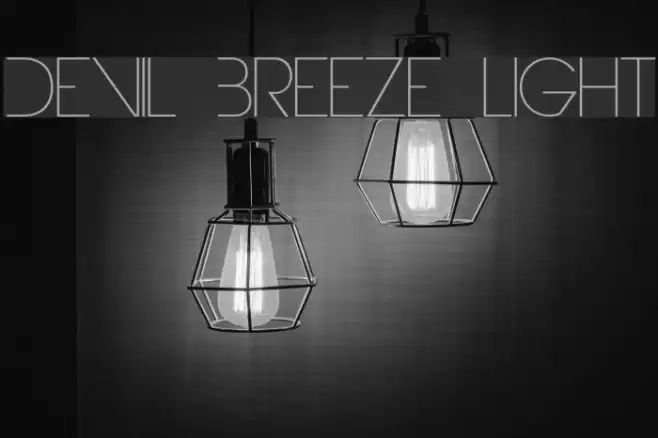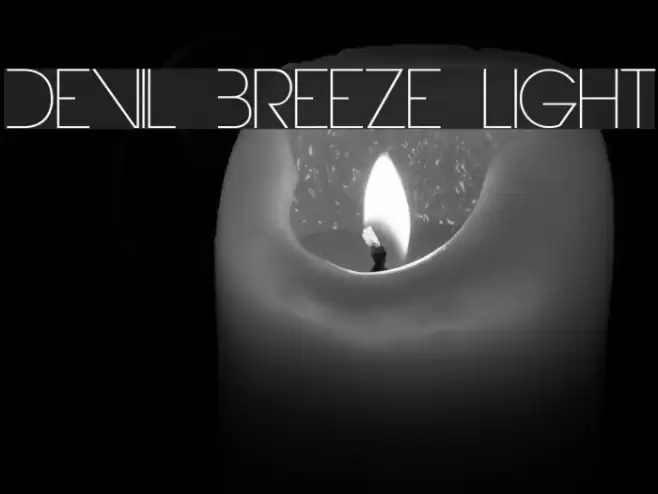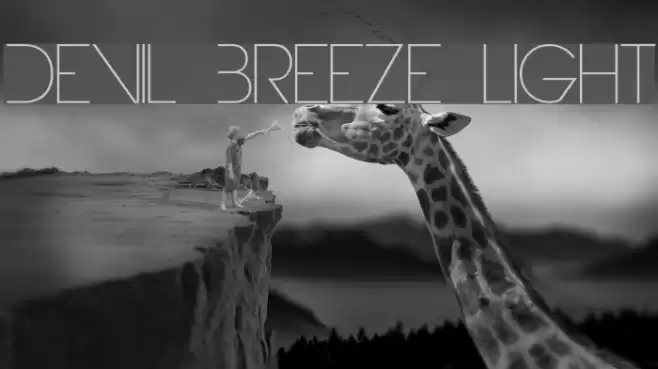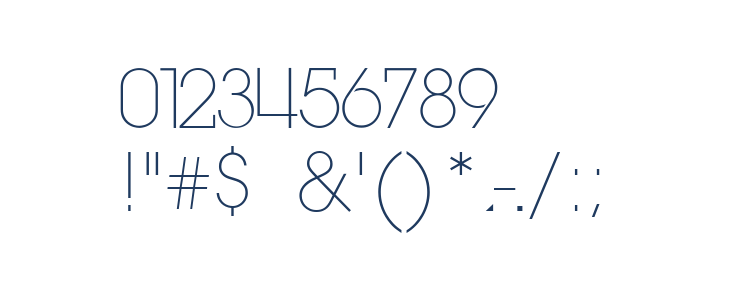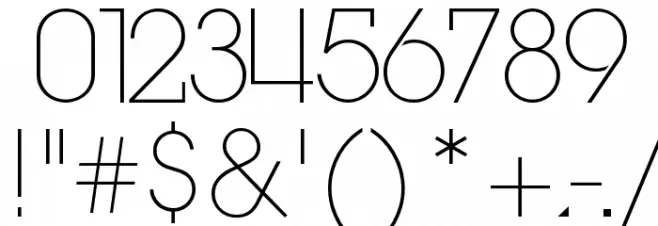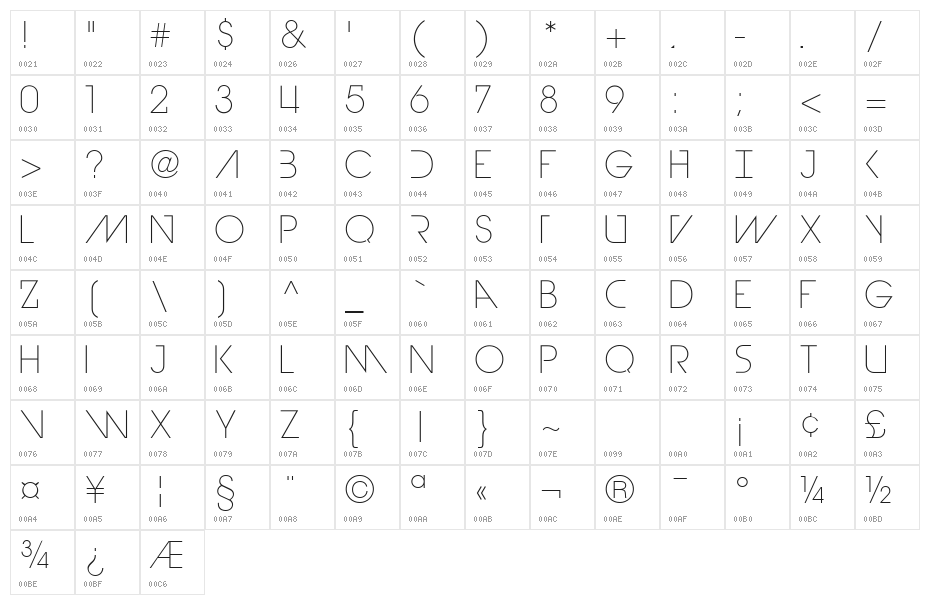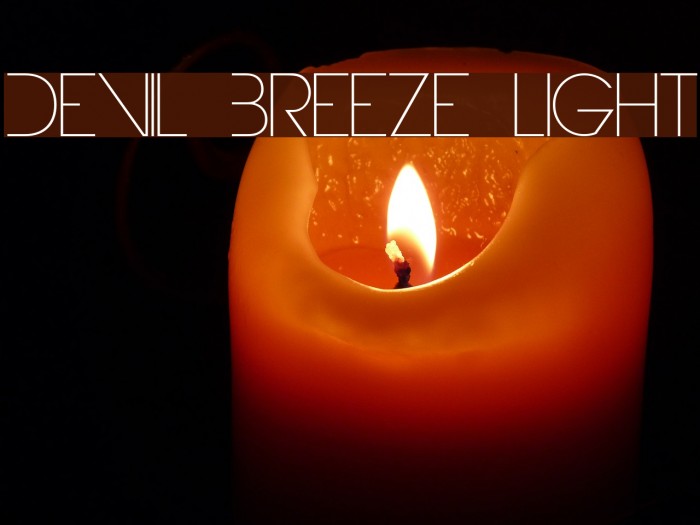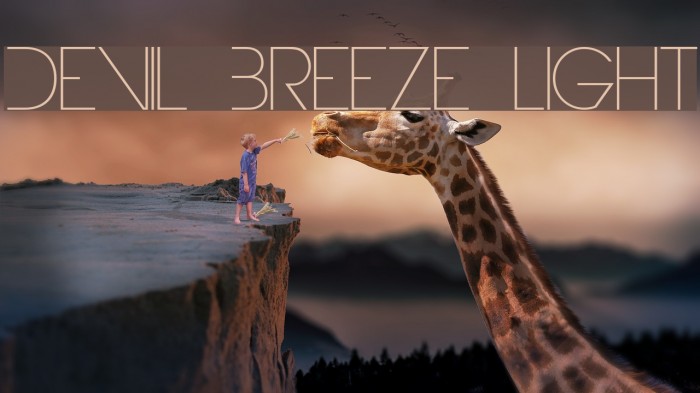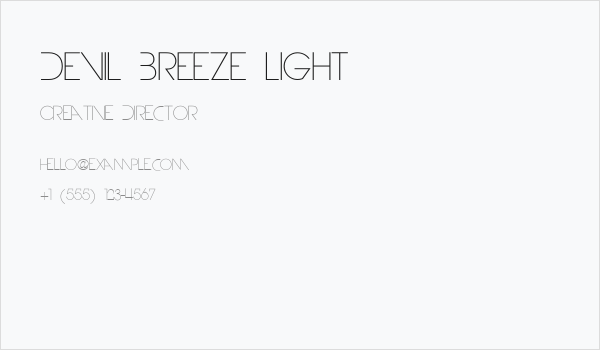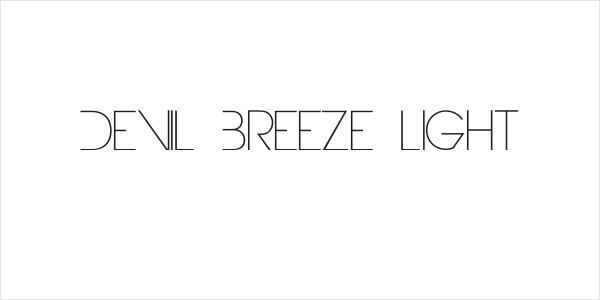
Devil Breeze Light Font
Devil Breeze Light Description
This font features a sleek, geometric design with a modern aesthetic. The characters are composed of thin, uniform lines that create a sense of elegance and sophistication. The uppercase letters exhibit a unique angularity, while the lowercase letters maintain a consistent style, offering a harmonious blend of form and function. The numerals are distinct and easily readable, complementing the overall design. Special characters are crafted with the same attention to detail, ensuring versatility across various applications. The font's minimalistic approach makes it suitable for contemporary design projects.
A modern, geometric font with thin lines and a sleek, elegant style from Uncategorized fonts.
- Proposed Projects: Ideal for branding, logos, editorial design, and modern web design projects.
- Use Case: Logos, Headlines, Editorial design